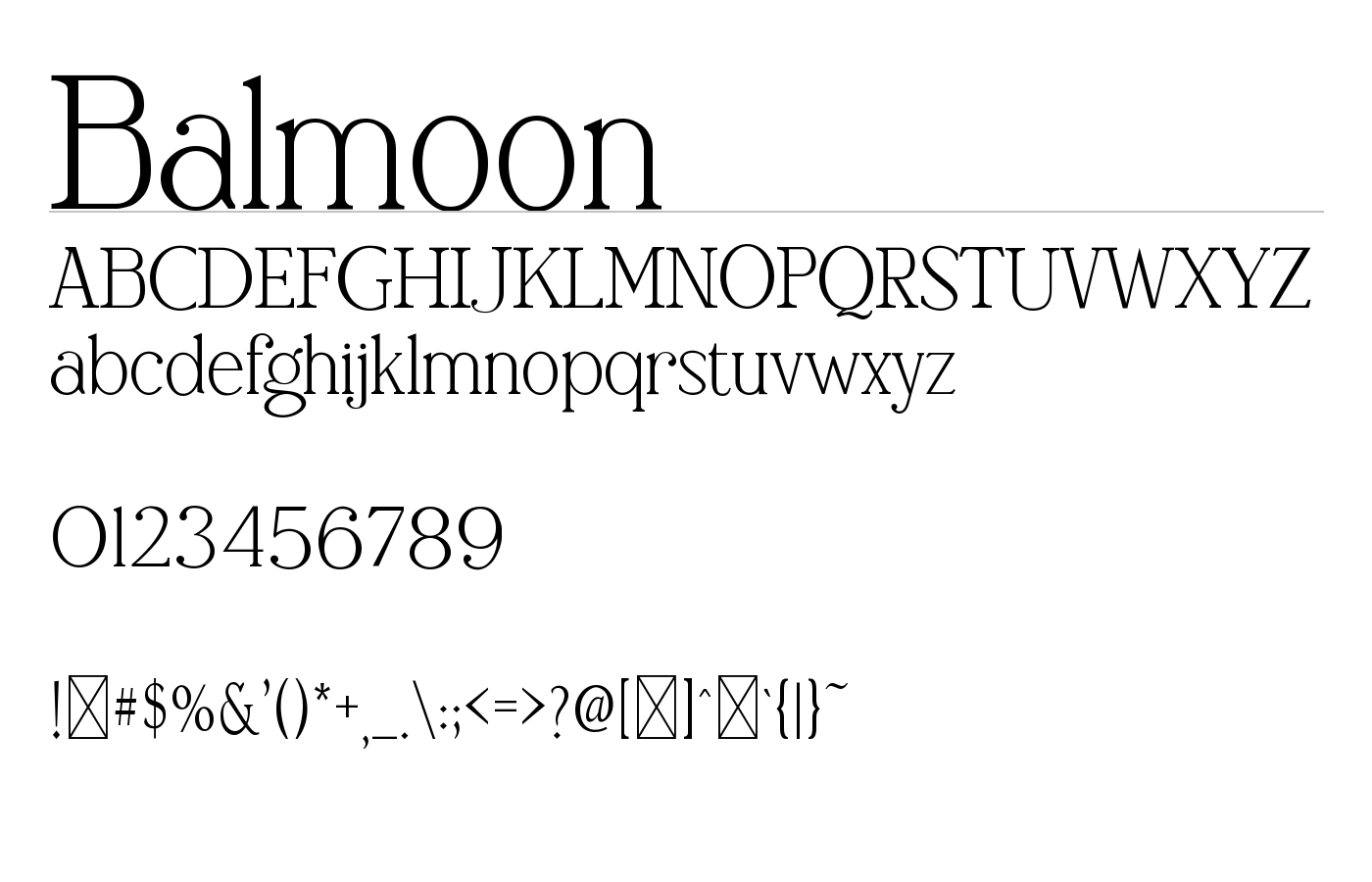
Balmoon is an elegant serif font with a modern and refined feel, characterized by its high contrast between thick and thin strokes and delicate, bracketed serifs. Its slender, tall letterforms and distinctive shapes, like the single-story "a" and open "g," give it a sophisticated yet approachable look, making it ideal for luxury branding, editorial design, and upscale headlines. This font works well where a polished, stylish impression is desired without losing readability or grace.
Balmoon Font
About Balmoon Font
| Designer | Alif Graphic |